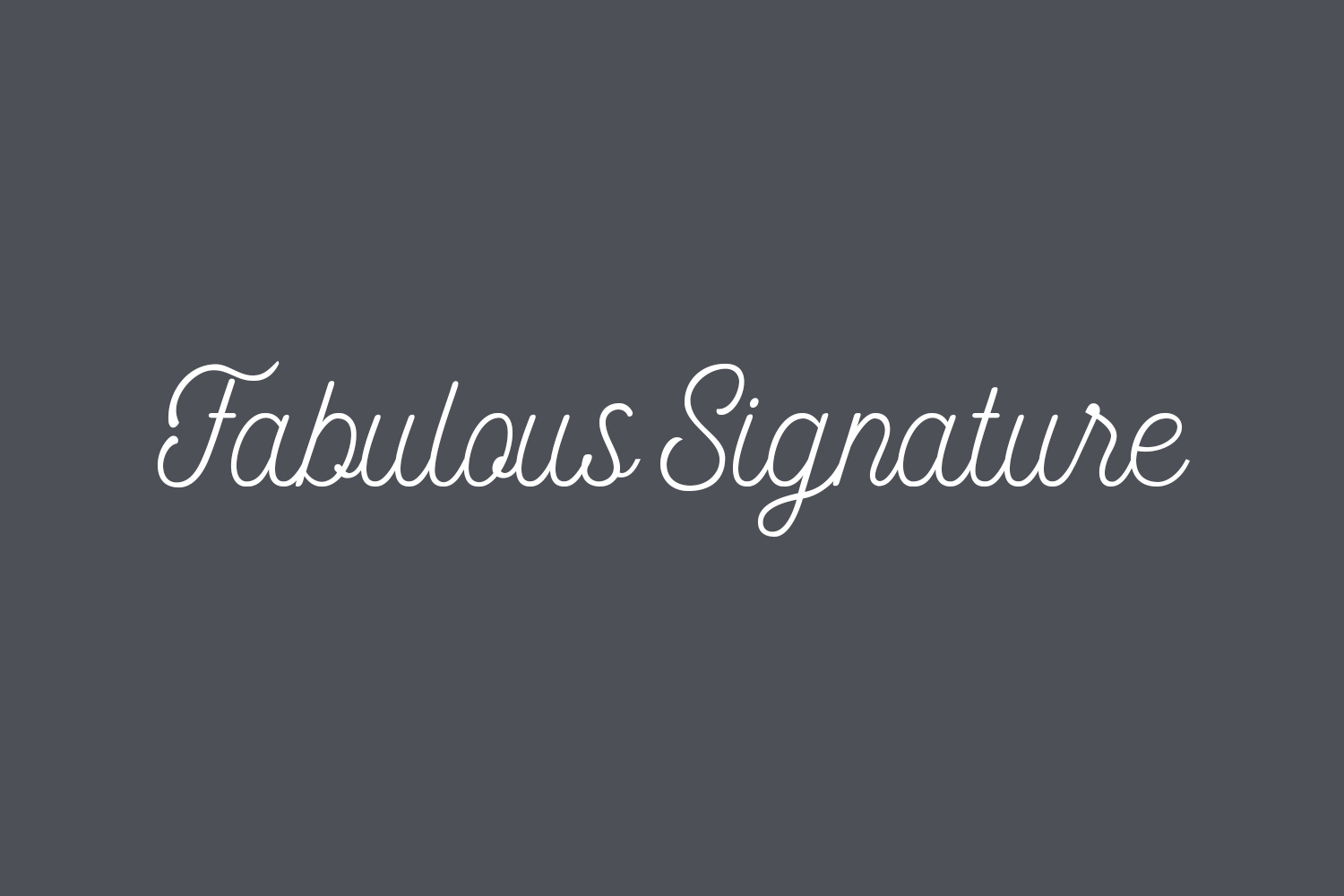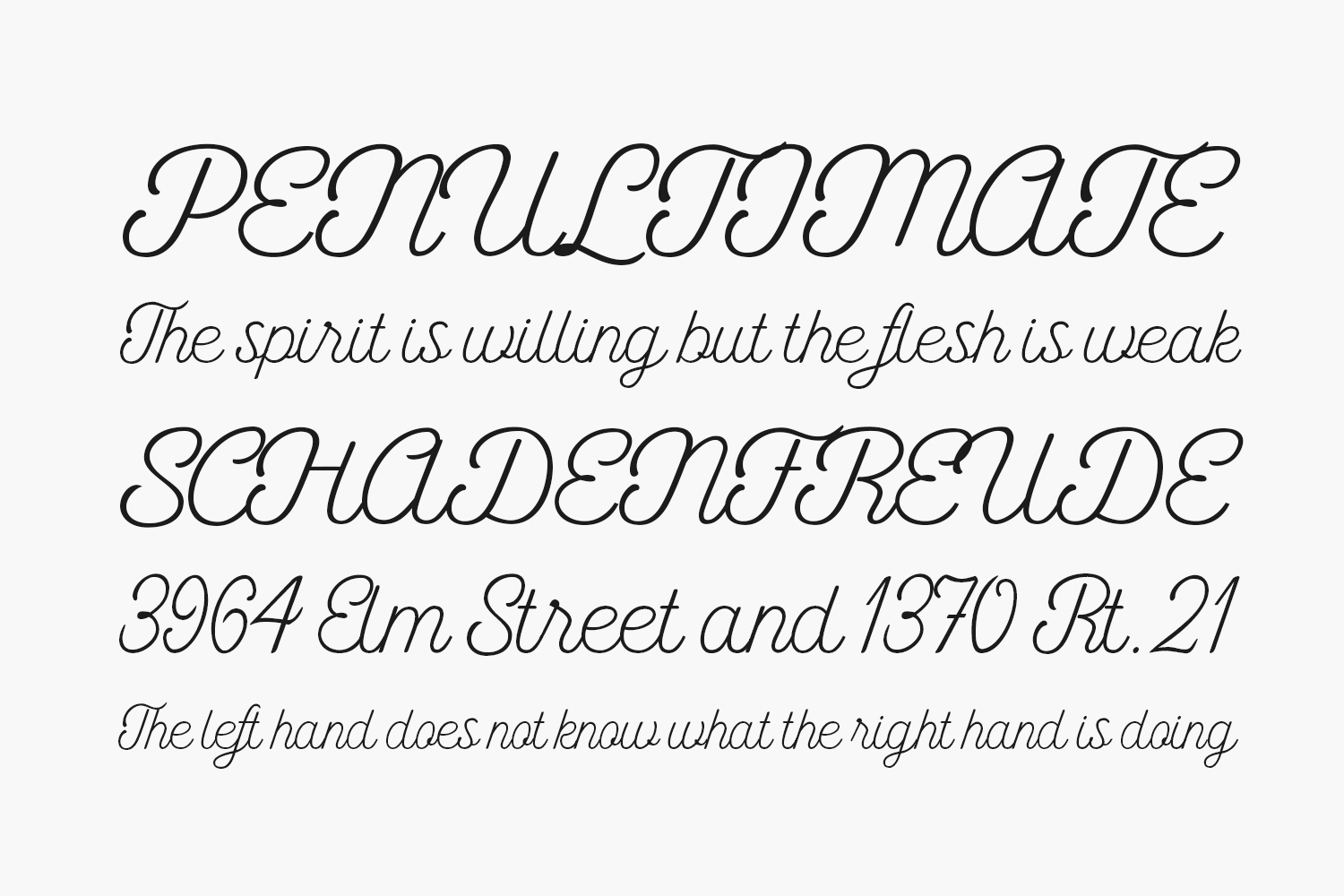
Fabulous Signature Free Font presents a bold and timeless handwritten font, featuring well-rounded characters and a friendly style. Infused with a subtle vintage touch and stylish lettering, this font stands as an excellent choice for a wide range of creative concepts. Fabulous Signature Free Font was designed by Akifatype Studio and is free for personal use only. Please purchase the full version for commercial use.